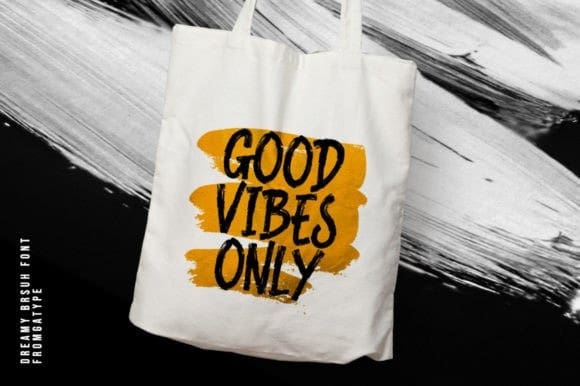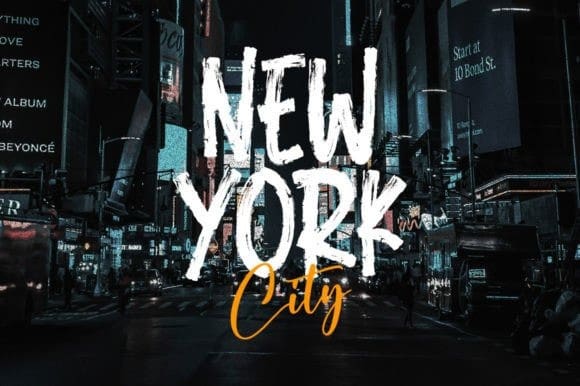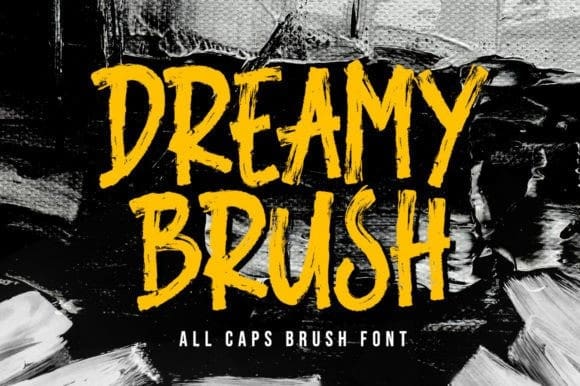
Dreamy Brush Font
Dreamy Brush Font is a cool, contemporary handwritten brush font. Its modern and trendy vibe makes it suitable for a wide range of project ideas.